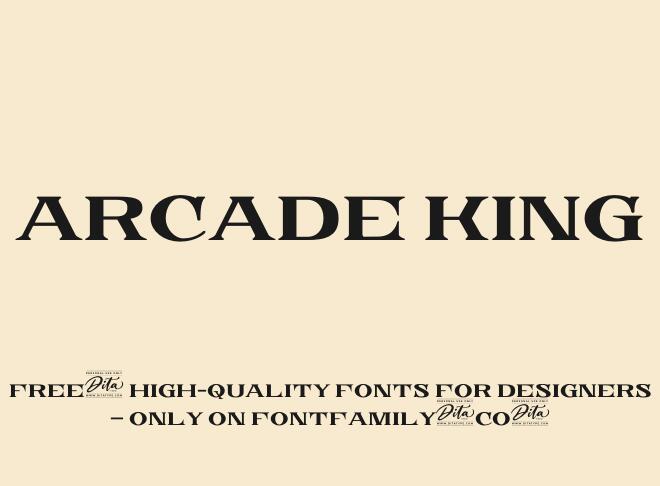
Arcade King Font
Arcade King Font, designed by Pixel Foundry, is a playful and retro styled typography that brings back the nostalgia of vintage arcade game aesthetics. This geometrically shaped, display font is characterized by its bold letterforms and sharp edges, perfectly capturing the spirit of classic 80s gaming culture. It is an ideal choice for any design project that requires a touch of retro arcade flair, such as game UI, digital art, posters, logos, and more. Compared to other retro fonts, Arcade King stands out with its distinct character and unique geometric design, making it a must-have in a designer's font arsenal. Its free availability for personal use adds to its popularity among designers who aim to create striking and memorable designs.
Author | Pixel Foundry |